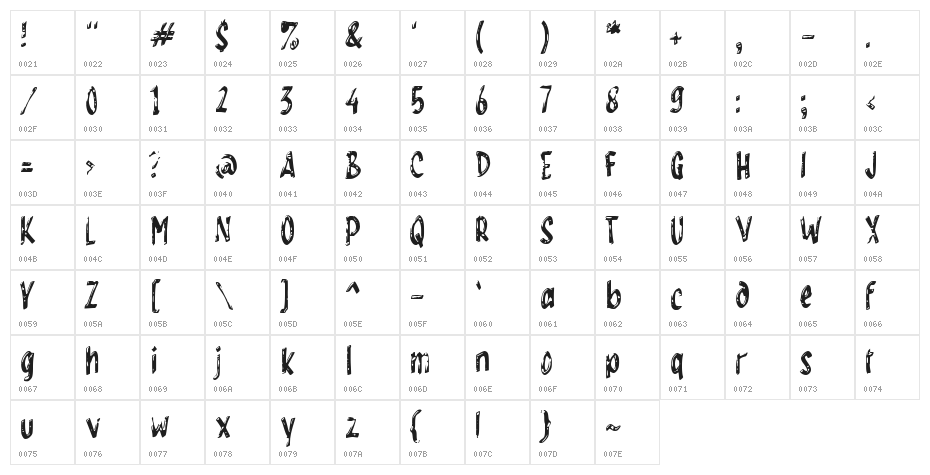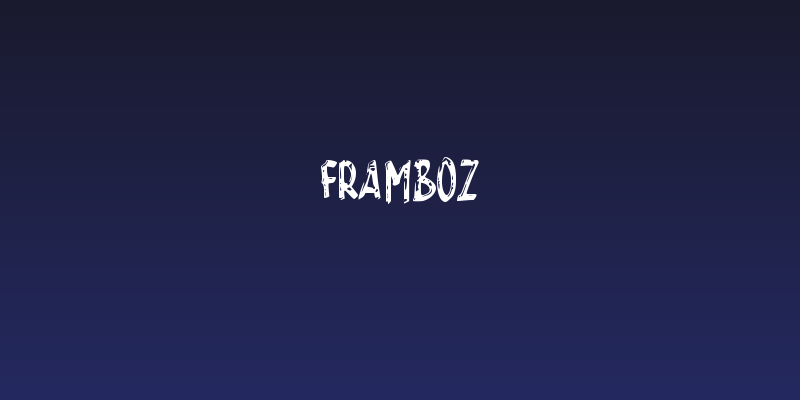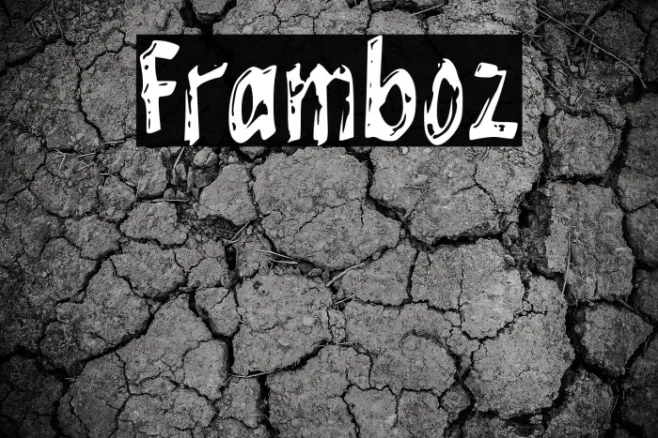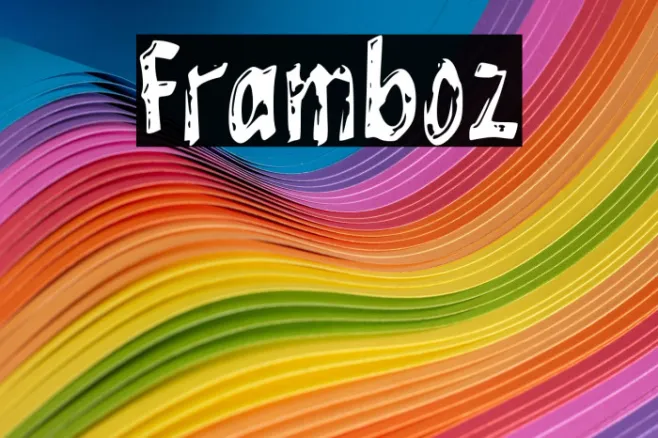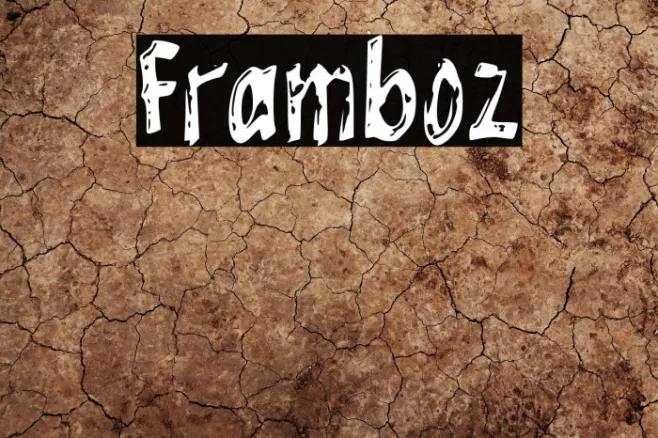
Framboz Font
Framboz Description
This font features a playful and artistic style, characterized by its uneven strokes and hand-drawn appearance. The letters are bold and slightly irregular, giving them a dynamic and energetic feel. The uppercase and lowercase letters maintain a consistent style, with a whimsical touch that adds personality. Numbers and special characters follow the same artistic theme, making the font versatile for creative projects. The overall design is reminiscent of a handcrafted, doodle-like aesthetic, perfect for adding a unique flair to any design.
| Overall Style | Playful, Artistic, Hand-drawn |
| Use Case | Headlines, Creative projects, Branding |
| Proposed Projects | Ideal for children's book covers, playful branding, creative posters, and artistic invitations. |